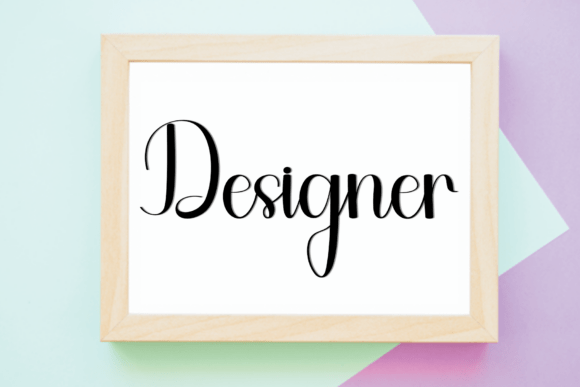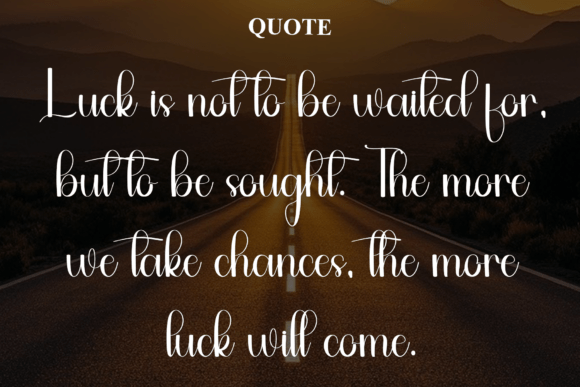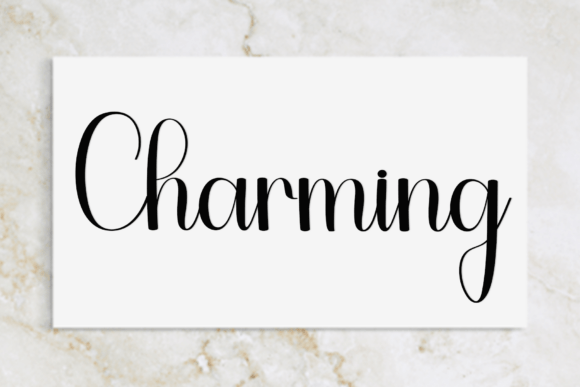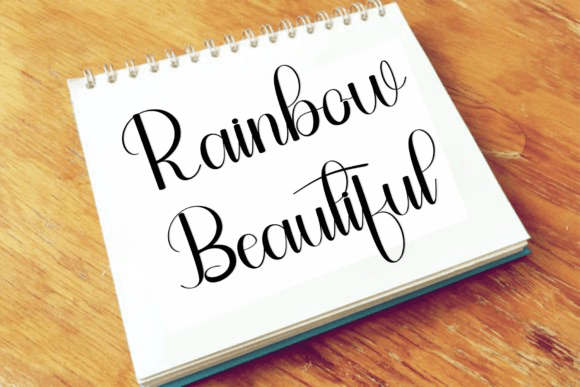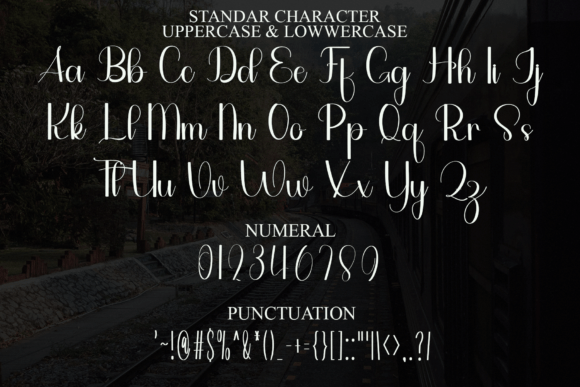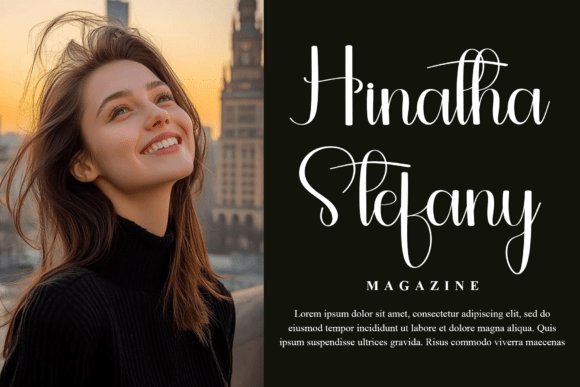
Introduction to Outside Vocation Font
Have you ever stumbled upon a font that perfectly captures the essence of your creative project? For me, that moment came when I discovered the Outside Vocation Font. Its charming, hand-drawn aesthetic immediately drew me in, and I knew I had to learn more about this design resource.
As a designer, I’m always on the lookout for fonts that add a unique touch to my work. The Outside Vocation Font, with its round, playful strokes, is the perfect addition to any creative project. Its warm and friendly feel makes it ideal for personal projects, invitations, and social media graphics. Whether you’re looking to add a personal touch to your design or create a cohesive brand identity, this font is a valuable asset for any designer.
Key Features of Outside Vocation Font
- Includes 5 styles, each with a distinct character, making it perfect for adding visual interest to designs.
Honest Review: Outside Vocation Font
I recently stumbled upon the Outside Vocation Font and I must say it’s been a game-changer for my creative project. The design is clean and modern, making it perfect for any professional or personal branding need.
What works well: ✨ The font’s versatility is one of its strongest points, with a wide range of styles and weights to choose from. The free download option is also a major plus, making it accessible to designers of all levels. The transparent background is a nice touch, allowing for seamless integration into any design.
Overall, I’m impressed with the Outside Vocation Font and would definitely recommend it to designers looking for a high-quality, free design resource. Just be aware of its limitations and use it thoughtfully in your creative project.
How to Use Outside Vocation Font
The Outside Vocation Font is a versatile design resource that can be used in a variety of creative projects. It’s a high-quality font with a transparent background, making it easy to customize and integrate into your designs.
Getting the Most Out of Outside Vocation Font
To get the most out of Outside Vocation Font, use it in combination with other design elements to create a cohesive look. Experiment with different font sizes, colors, and arrangements to find the perfect fit for your project.
The Outside Vocation Font is perfect for a variety of creative projects, including: logo design, branding, and marketing materials. It’s also great for use in social media graphics, presentations, and documents.